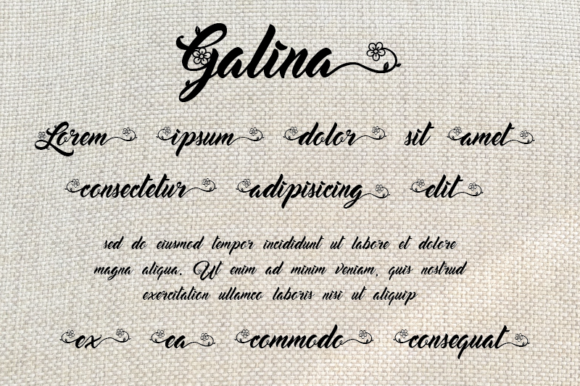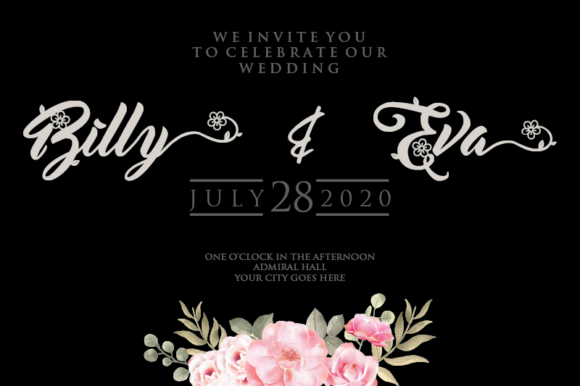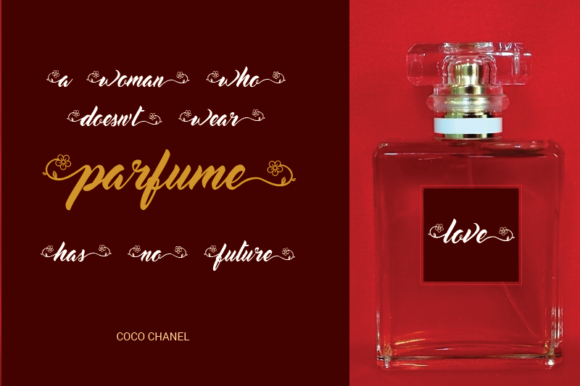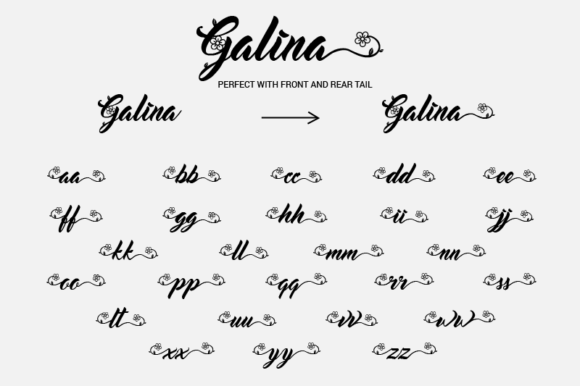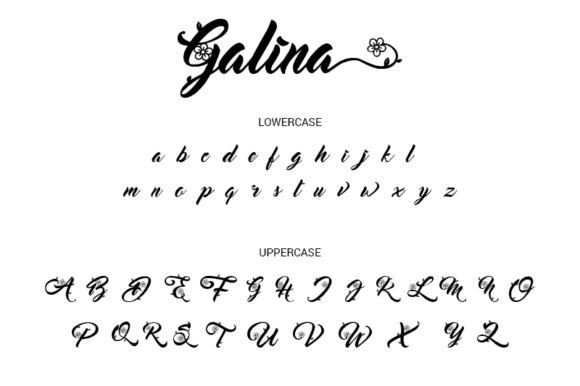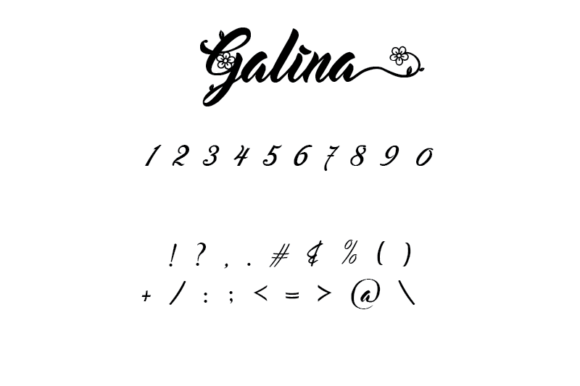
Introducing Galina Font: Elevate Your Designs with Elegance and Whimsy
Are you on the hunt for a font that exudes elegance, sophistication, and a touch of playfulness? Look no further than Galina Font, a stunning handwritten typeface that is sure to capture your heart. This beautiful font is adorned with delicate flower ornaments, making it perfect for a wide range of creative projects, from wedding invitations and stationery to social media posts and more.
What Makes Galina Font So Special?
Galina Font is an incredibly elegant and distinct handwritten font that boasts a range of features that set it apart from other typefaces. Here are just a few reasons why Galina Font is a must-have for designers and crafters:
- PUA Encoding: Galina Font is PUA (Private Use Area) encoded, which means that you can access all of the glyphs and swashes with ease. This makes it simple to create stunning text arrangements that showcase the font’s full range of features.
- Varying Baseline: The font features a varying baseline, which gives it a beautifully organic and hand-crafted feel. This makes it perfect for creating designs that require a touch of personality and whimsy.
- Smooth Lines and Gorgeous Glyphs: Galina Font boasts smooth lines and gorgeous glyphs, which give it a luxurious and sophisticated feel. The font’s glyphs are intricately designed, with delicate details that add to its overall elegance.
- Stunning Alternates: The font comes with a range of stunning alternates, which allow you to create unique and eye-catching text arrangements. Whether you’re looking to add a touch of drama or create a more subtle design, Galina Font’s alternates have got you covered.
Uses for Galina Font
Galina Font is an incredibly versatile typeface that can be used for a wide range of creative projects. Here are just a few ideas to get you started:
- Wedding Invitations: Galina Font is perfect for creating beautiful wedding invitations that exude elegance and sophistication. The font’s delicate flower ornaments and smooth lines make it ideal for formal wedding designs.
- Stationery and Art: The font’s gorgeous glyphs and stunning alternates make it perfect for creating beautiful stationery and art. Whether you’re looking to create custom letterheads, greeting cards, or art prints, Galina Font is a great choice.
- Social Media Posts: Galina Font’s elegant and whimsical style makes it perfect for creating eye-catching social media posts. Use the font to create stunning graphics, quotes, and more that are sure to capture your audience’s attention.
- Branding and Packaging: The font’s luxurious feel makes it perfect for branding and packaging designs. Use Galina Font to create custom logos, labels, and packaging that exudes elegance and sophistication.
Tips for Using Galina Font
Here are a few tips for getting the most out of Galina Font:
- Experiment with Different Sizes: Galina Font looks great in a range of sizes, from small and delicate to large and bold. Experiment with different sizes to find the perfect fit for your design.
- Mix and Match Glyphs: The font’s gorgeous glyphs and stunning alternates make it perfect for mixing and matching. Try combining different glyphs and swashes to create unique and eye-catching text arrangements.
- Pair with Other Fonts: Galina Font pairs well with a range of other fonts, from elegant serif typefaces to bold sans-serif fonts. Experiment with different pairings to find the perfect combination for your design.
In conclusion, Galina Font is a stunning handwritten typeface that is sure to elevate your designs with its elegance and whimsy. With its PUA encoding, varying baseline, smooth lines, gorgeous glyphs, and stunning alternates, this font is perfect for a wide range of creative projects. Whether you’re a designer, crafter, or DIY enthusiast, Galina Font is a must-have for anyone looking to add a touch of luxury and sophistication to their designs.